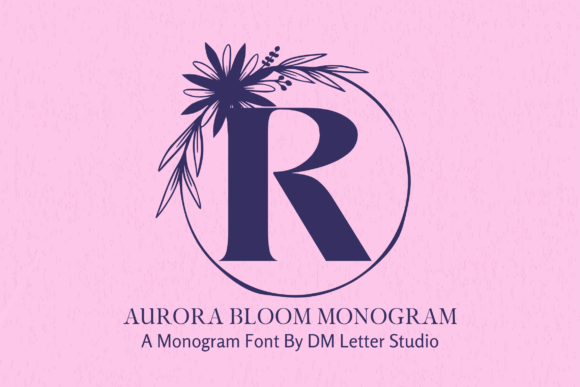
Aurora Bloom Monogram Font: Elevate Your Branding with Elegance and Versatility
In the realm of typography, few fonts manage to strike a balance between elegance, versatility, and sophistication. However, Aurora Bloom Monogram Font stands out as a beacon of refinement, meticulously crafted for those who seek to create sublime monograms, distinct logos, and bespoke branding. This exquisite typeface is not just a collection of letters; it’s an experience that brings a harmonious blend of refined letterforms and detailed embellishments to your fingertips.
Key Features of Aurora Bloom Monogram Font
- Precision Craftsmanship: Every letterform in Aurora Bloom Monogram Font is designed with precision, ensuring that each monogram, logo, or branding element exudes perfection.
- Elegant and Versatile: The font’s design caters to a wide range of applications, from wedding invitations and high-end branding to designer stationery and custom crafts.
- Refined Letterforms: The core of Aurora Bloom’s appeal lies in its refined letterforms that carry a sense of sophistication and luxury.
- Detailed Embellishments: What sets Aurora Bloom apart is its intricate embellishments, adding a layer of uniqueness and class to every project.
Endless Possibilities with Aurora Bloom Monogram Font
Aurora Bloom Monogram Font is more than just a typeface; it’s a tool that unlocks a world of creative possibilities. Here are some of the areas where this font truly shines:
- Wedding Invitations: Create stunning wedding invitations that set the tone for a sophisticated and memorable event.
- High-End Branding: Elevate your brand with a logo or monogram that speaks of luxury, quality, and timeless elegance.
- Designer Stationery: From letterheads to thank you cards, add a touch of class to your stationery with Aurora Bloom.
- Custom Crafts: Whether it’s bespoke gifts or personalized decor, Aurora Bloom Monogram Font adds a unique and thoughtful element to any craft project.
Tips for Designing with Aurora Bloom Monogram Font
To truly harness the potential of Aurora Bloom Monogram Font, consider the following design tips:
- Mix and Match: Don’t be afraid to experiment with different monogram combinations to find the perfect fit for your project.
- Play with Colors: While the font itself is a masterpiece, experimenting with various colors can further enhance its elegance and versatility.
- Pair with Simplicity: Sometimes, less is more. Pair Aurora Bloom with simpler design elements to let its beauty shine.
Why Choose Aurora Bloom Monogram Font?
In a market flooded with generic fonts, Aurora Bloom Monogram Font stands out for several reasons:
- Uniqueness: Its detailed embellishments and refined letterforms ensure that your projects stand out from the crowd.
- Versatility: Whether you’re working on a wedding invitation or a corporate brand identity, Aurora Bloom adapts seamlessly.
- Ease of Use: Designed with the user in mind, Aurora Bloom Monogram Font is easy to integrate into various design projects, making it accessible to both professionals and hobbyists.
— James D., Branding Consultant
Aurora Bloom Monogram Font is more than just a typeface; it’s a gateway to creating designs that are not only visually stunning but also carry a sense of elegance, sophistication, and uniqueness. Whether you’re a professional designer, a small business owner, or someone who loves creating custom crafts, Aurora Bloom offers the tools you need to elevate your projects to new heights of refinement and style. With its precision craftsmanship, versatile applications, and the classy touch it brings to every design, Aurora Bloom Monogram Font is an indispensable asset in the world of typography and design.